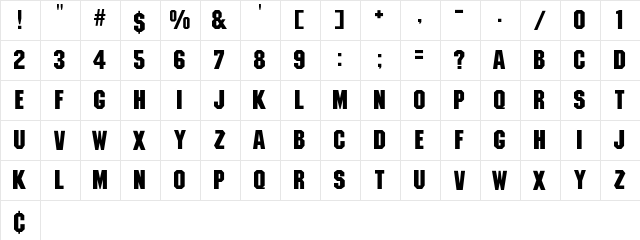
MachiavBold Regular
Design Context for MachiavBold Typeface
MachiavBold takes a measured approach to typography — its balanced proportions and neutral character make it a reliable workhorse for both digital and print work. Its bold stroke weight gives it real presence on the page.
Pro Tip: Use MachiavBold in both headline and body roles to test its range before committing to a single application.